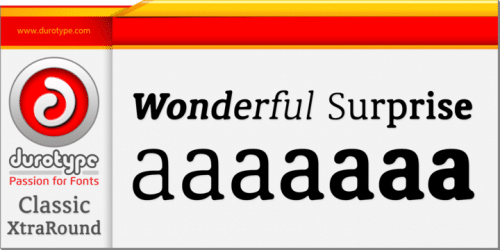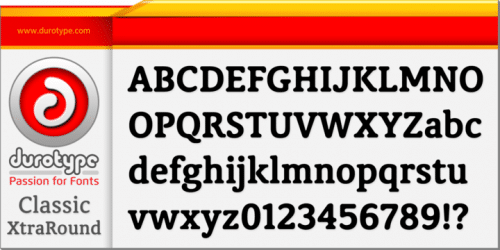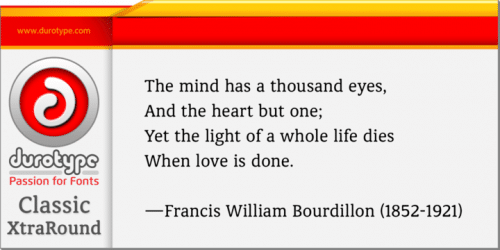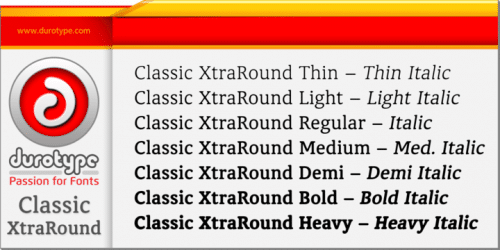
Classic XtraRound is a companion typeface to Classic Round, designed by Ben Blom. Although Classic Round has a lot of roundness, Classic XtraRound has more. Classic XtraRound has maximum roundness — no sharp corners, anywhere.
Classic XtraRound has maximum roundness — and is still legible. It can be used as an interesting workhorse in small text sizes. It makes eye-catching headlines in big display sizes.
Classic XtraRound can be combined in any way with Classic Round, to create an interesting variation and sameness within the same document, brochure, catalog, advertisement, etc.